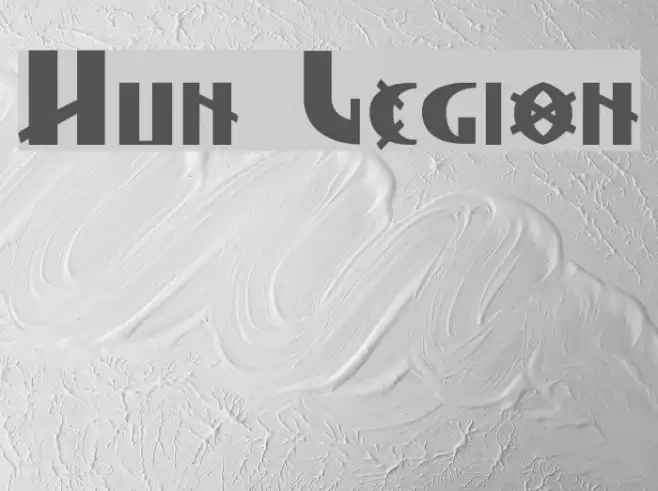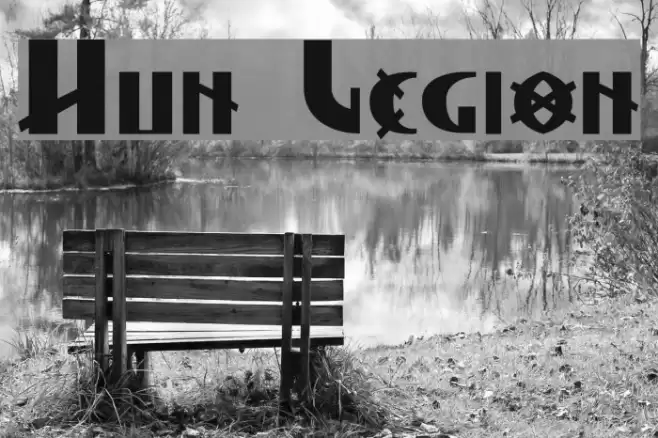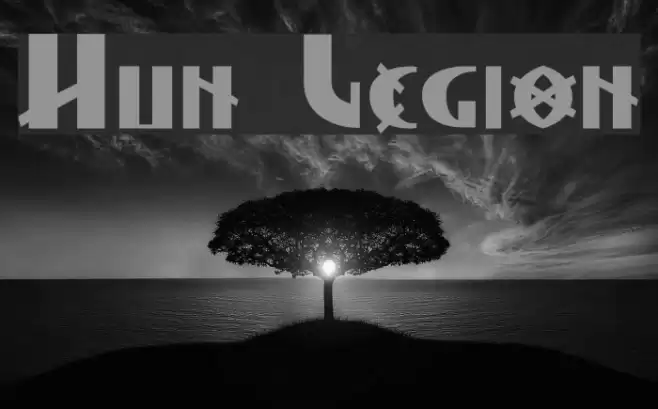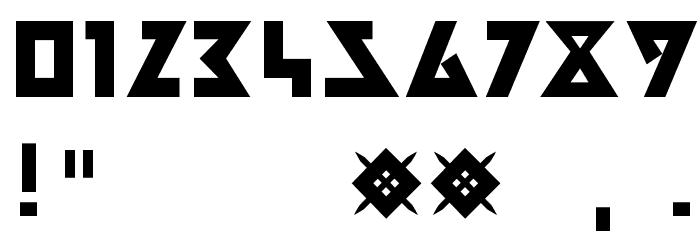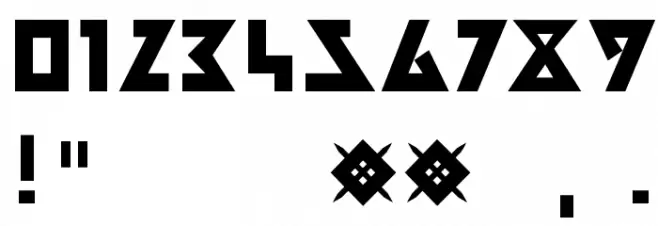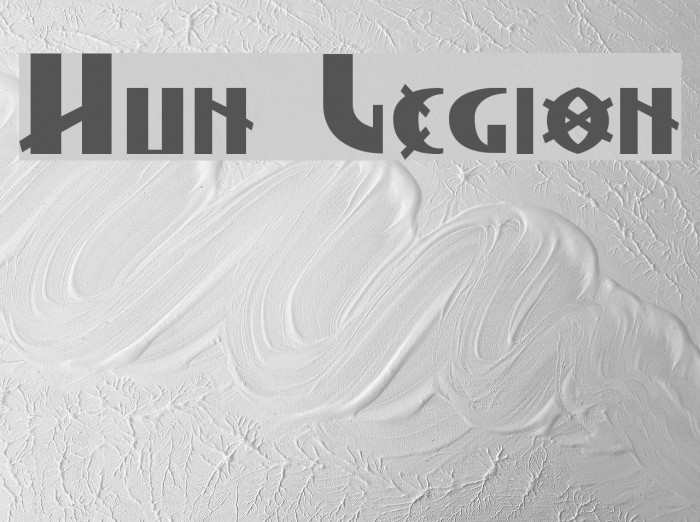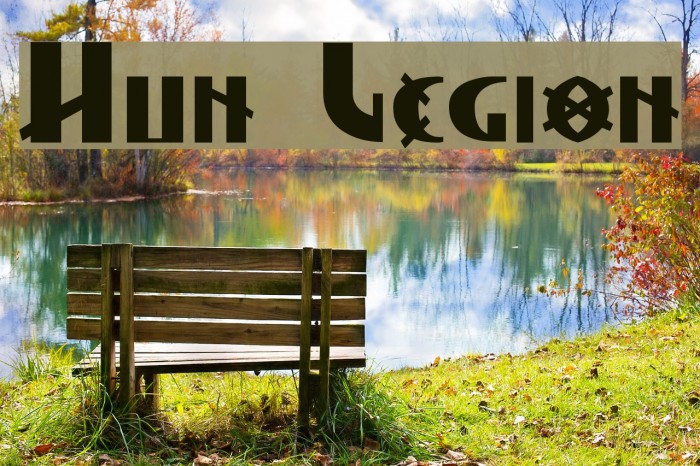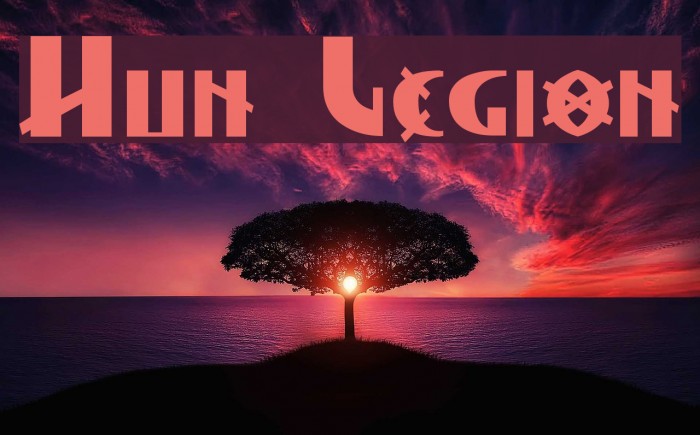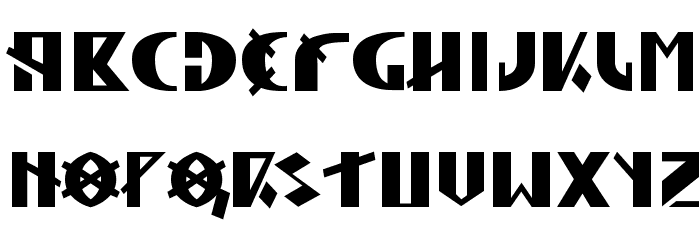
Hun Legion Font
Hun Legion Description
This font features a bold and geometric design with sharp angles and unique cutouts, creating a striking and modern appearance. The uppercase letters are particularly distinctive, with each character incorporating angular elements that give it a futuristic and edgy feel. The numbers and special characters maintain this aesthetic, ensuring consistency throughout. The font's boldness and unique style make it stand out, ideal for projects that require a strong visual impact. Its design is reminiscent of futuristic or sci-fi themes, making it suitable for creative and innovative applications.
A bold, geometric font with sharp angles and futuristic design from Uncategorized fonts.
- Proposed Projects: Ideal for sci-fi themed posters, video game titles, branding for tech companies, and any project requiring a modern and bold aesthetic.
- Overall Style: Futuristic, Modern